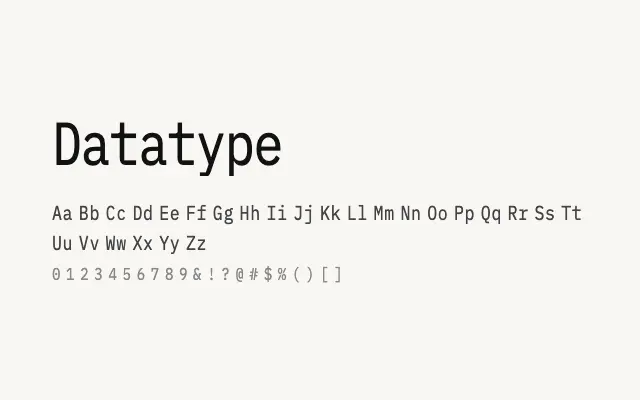
Datatype
Datatype is a versatile technical monospace covering an impressive nine weights, making it one of the more flexible coding and UI mono options available.
Its clean, precise letterforms are well-suited to code editors, data dashboards, and technical documentation where legibility and clear character differentiation are essential. The wide weight range is unusual for a monospace and allows for genuine typographic hierarchy within a single family. It is a solid choice for developers and UI designers who want more expressive control in a mono context.
Datatype is a contemporary monospaced typeface with a clean, technical aesthetic and an unusually broad weight range from Thin to Black. Its letterforms are clear and precise, reflecting a coding and interface orientation.